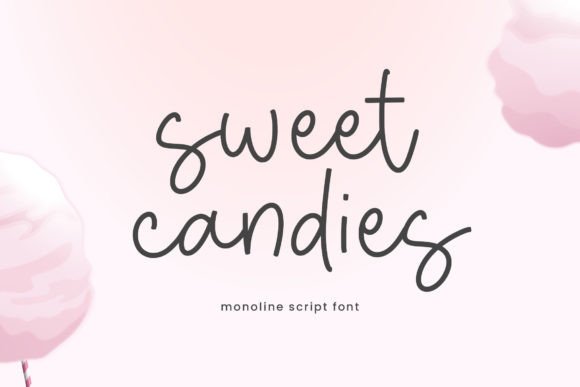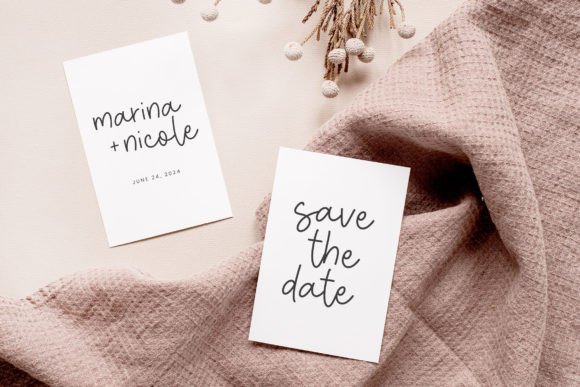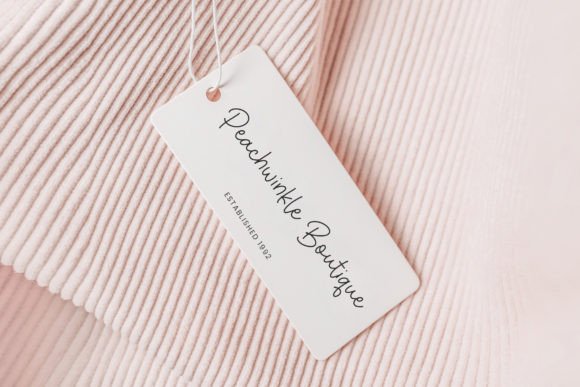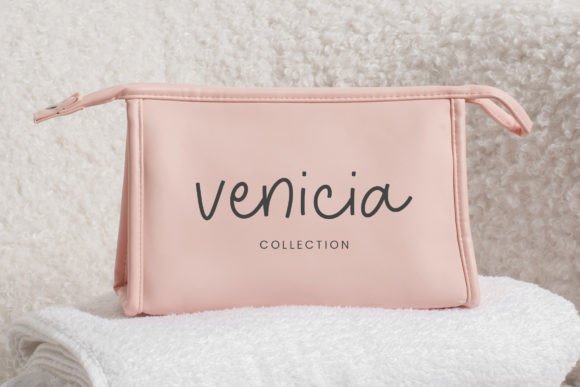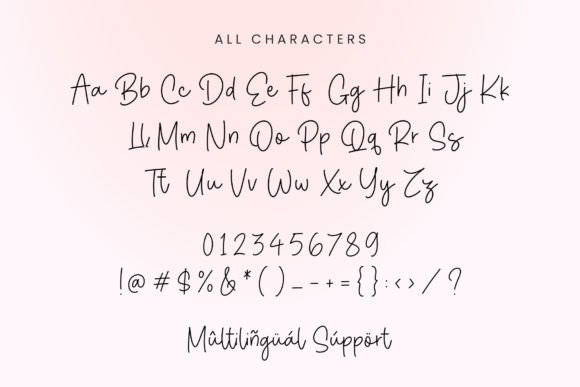
Sweet Candies Font
Sweet Candies is perfect for product packaging, branding project, magazine, social media, wedding, or just used to express words above the background.